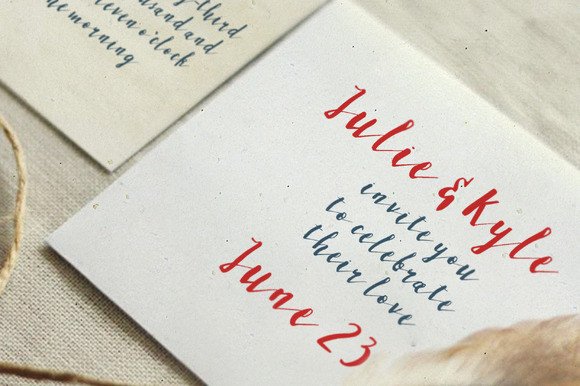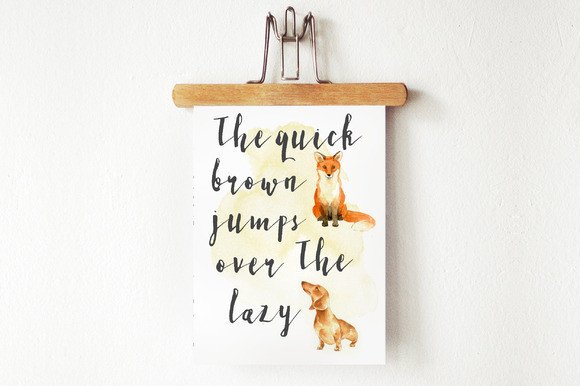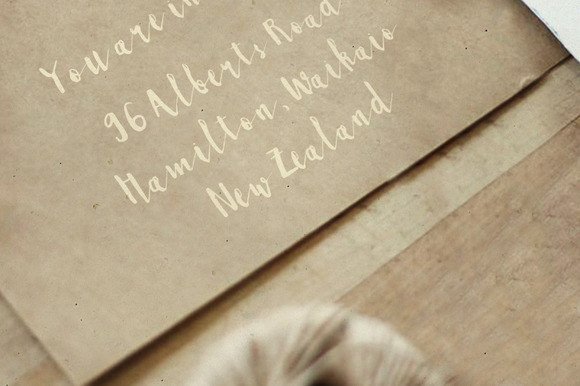
Briella Font
About Briella Font
Briella is a feminine and simple cursive script font.
Created by hand, Briella is best for: wedding invites, birthday cards, greetings, posters, return addresses, signatures, branding work, logo’s and much more.
Briella also has the accented glyphs.